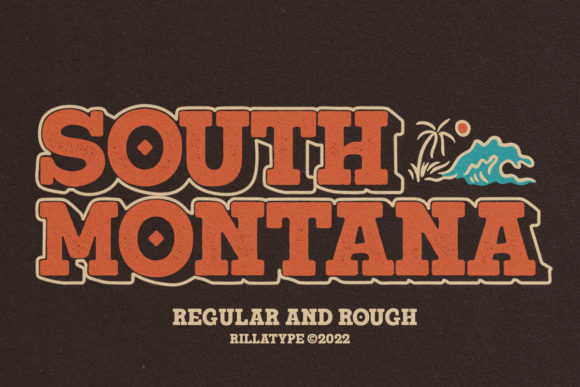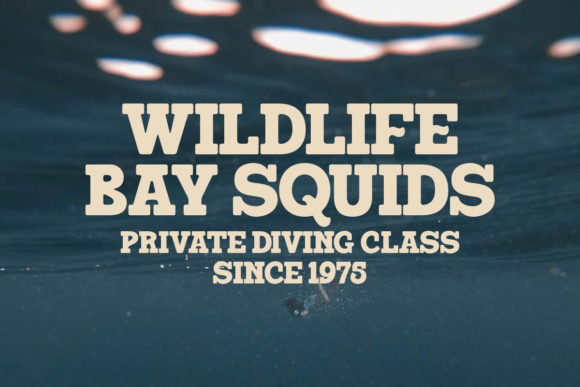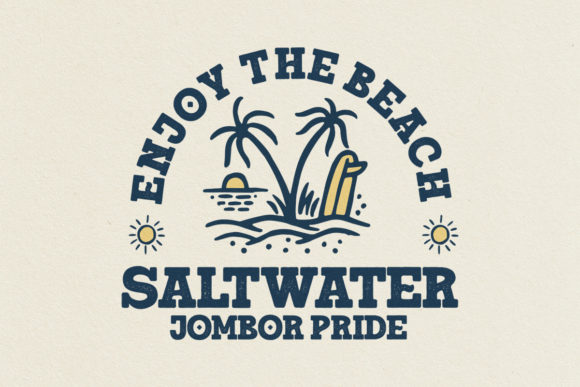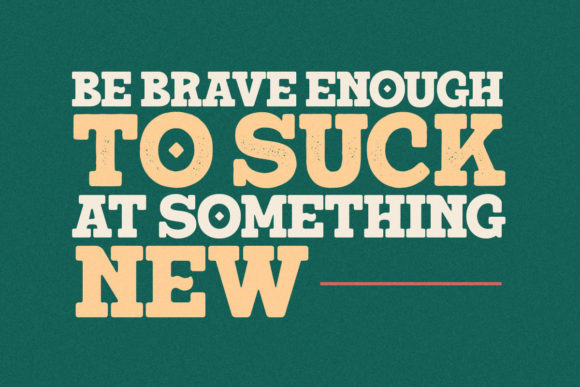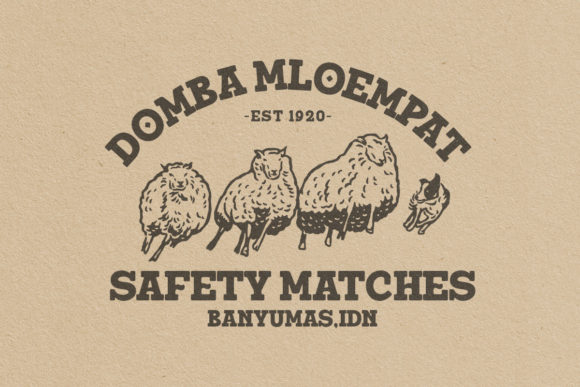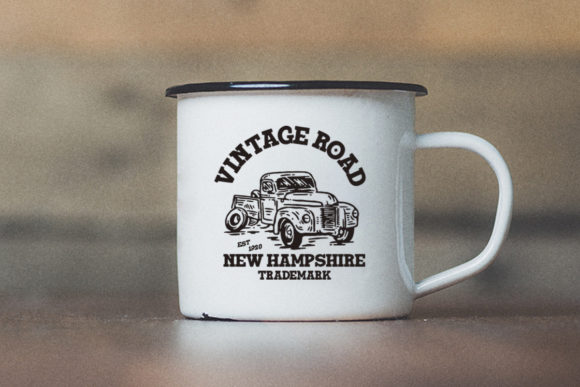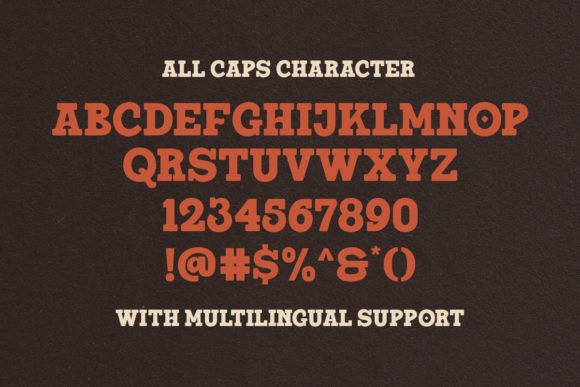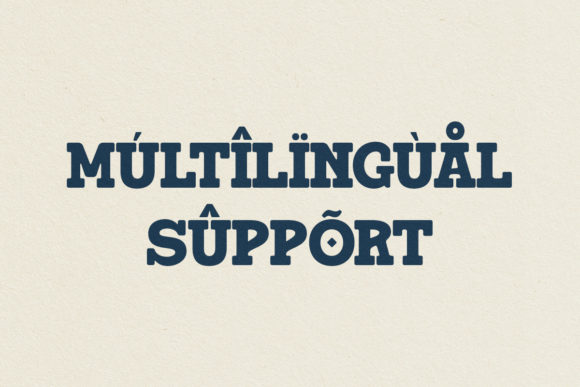
South Montana
South Montana: A Cool and Vintage Styled Slab Serif Font
South Montana is a cool, bold, and vintage styled slab serif font. It works incredibly well for branding, posters, labels, or designs that could benefit from a retro vibe. This font brings a classic touch to any creative project.
Key Features of South Montana
• Vintage Design: Offers a retro and stylish look suitable for various applications.
• Slab Serif Structure: Features thick, rectangular serifs typical of slab serif fonts.
• Versatile Application: Ideal for both print and digital media projects.
• Bold Style: Designed to make designs stand out with its strong presence.
Ideal Uses for South Montana
South Montana’s unique characteristics make it particularly well-suited for:
When incorporating South Montana into your designs, consider these tips:
• Use for headlines or short blocks of text to showcase its vintage style.
• Utilize its retro vibe across various creative projects to enhance visual appeal.
South Montana is an excellent choice for designers looking to add a vintage styled slab serif font to their typographic toolkit. Its ability to bring style and versatility to various design projects makes it stand out in the world of typography. Whether you’re working on branding, creating layouts for magazines, or developing content that requires a touch of nostalgia, South Montana offers the perfect blend of style and functionality.
Furthermore, South Montana’s unique design allows it to shine in various contexts. From vintage-inspired designs with a modern twist to more contemporary layouts that need a touch of uniqueness, this font can elevate your projects. Its striking yet functional style works particularly well in designs that require a thoughtful and engaging mood.
In conclusion, South Montana is a font that truly captures the essence of creativity and impact in typography. Its ability to work well in both minimalist projects and more elaborate layouts showcases its flexibility. For those looking to add a touch of unique charm to their work, South Montana can even enhance themed creations with its distinctive style. It’s the perfect choice for designers seeking to make a strong, stylish impact across a wide range of creative projects.